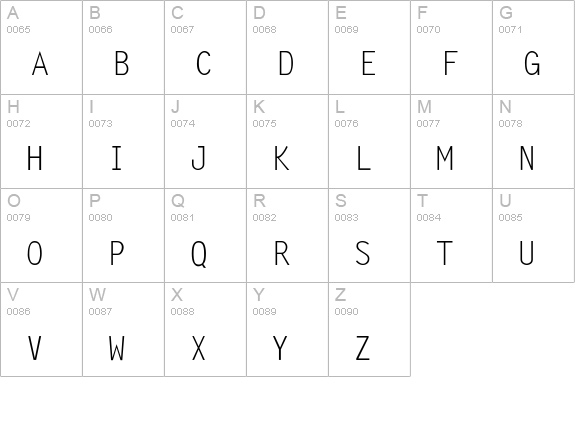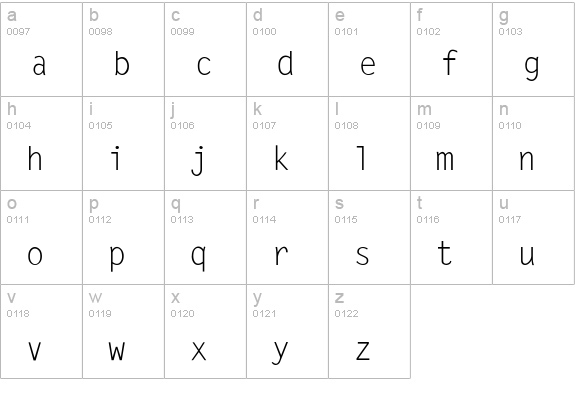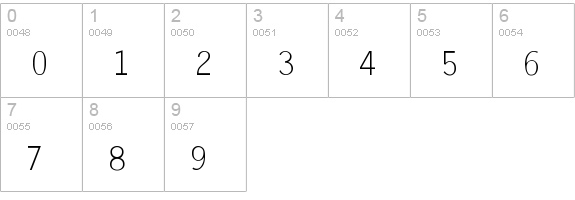
LetterGothic-Thin Font Details
LetterGothic-Thin is a delicate, low-contrast variant in the LetterGothic typeface family \xE2\x80\x94 well suited to fashion editorial, minimal branding, and high-contrast display.
LetterGothic-Thin is a sleek and elegant font that effortlessly combines modernity with a classic touch. Its thin and delicate lines create a sophisticated and refined appearance, making it the perfect choice for projects that require a clean and minimalist aesthetic. This font's simplicity allows it to be incredibly versatile, making it suitable for a wide range of design purposes. Whether it's used for branding, editorial layouts, or web design, LetterGothic-Thin always delivers a stylish and professional look. One of the most remarkable aspects of LetterGothic-Thin is that it is available for free. This means that you can easily download and use this font without any cost. It offers a fantastic opportunity for designers, creatives, and enthusiasts who are looking to enhance their projects with a high-quality typeface without breaking the bank. To obtain this font, simply head over to FontsMarket.com, a trusted source for a vast collection of fonts. There, you will find LetterGothic-Thin ready to be downloaded, allowing you to instantly incorporate its elegance and sophistication into your designs. Don't miss out on the chance to elevate your creations with the timeless beauty of LetterGothic-Thin. Download it for free at FontsMarket.com and let its thin strokes and impeccable design captivate your audience.